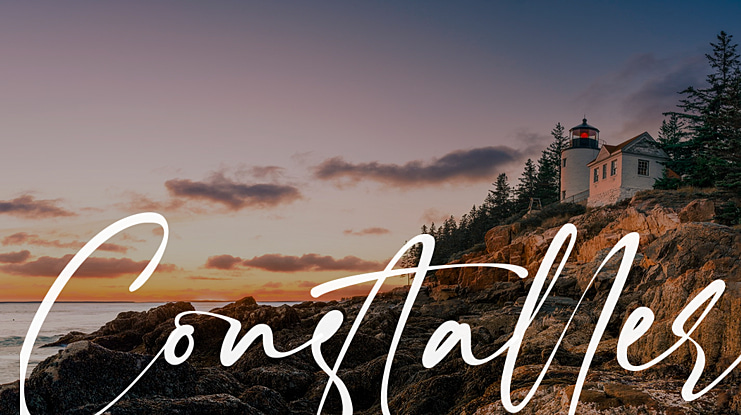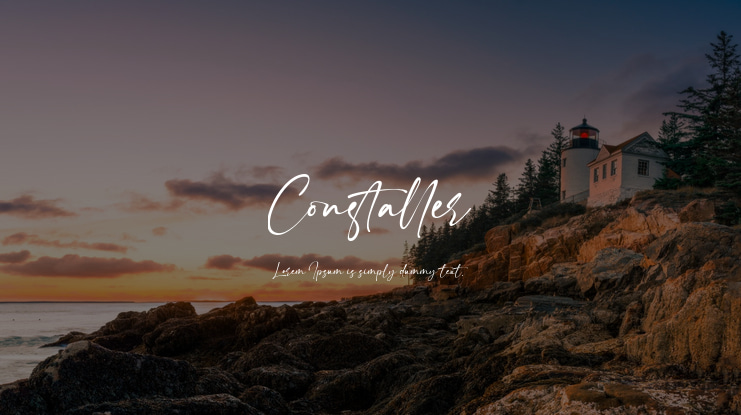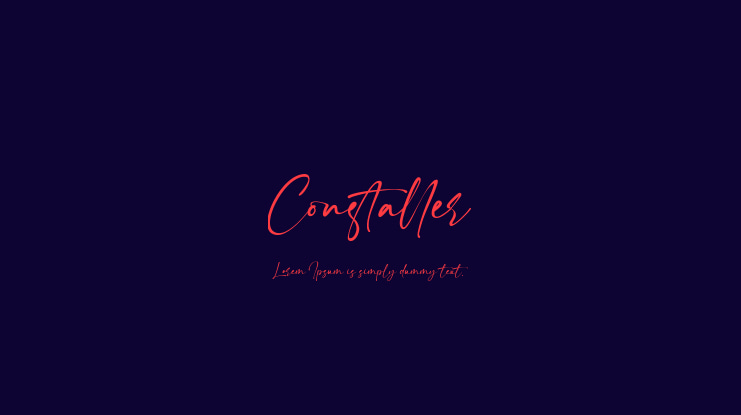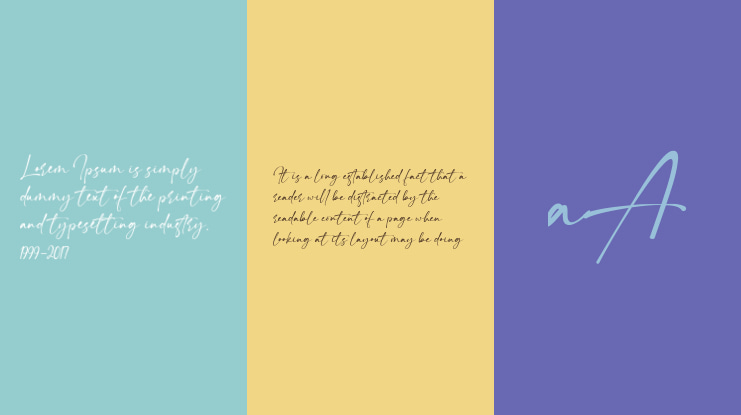
Constaller Font
Modern calligraphy font with casual-chic flair. Magical pressure makes this font perfect for creating signature logos and watermarks for photography studios or wedding invitations.